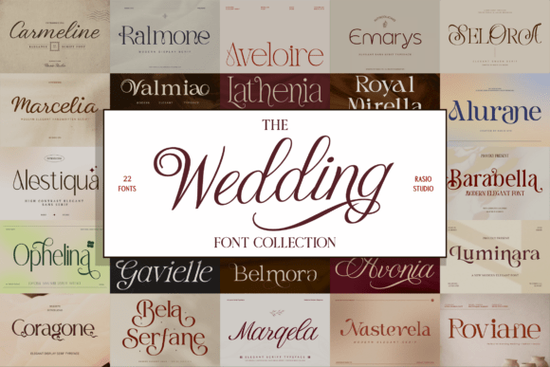
If you're designing wedding invitations, vow books, signage, or even boutique packaging for a small business, the Wedding Collection Font is a thoughtful, ready-to-use set of 22 fonts that works well without needing deep typography knowledge. It’s not about flashy trends it’s about typefaces that feel intentional, legible at print size, and quietly elegant on both screen and paper. Many designers spend hours searching for fonts that balance romance and readability; this bundle simplifies that step.
What’s actually in the Wedding Collection Font?
The collection includes a mix of serif fonts, delicate scripts, and clean modern styles all designed with real-world use in mind. You’ll find fonts suited for headings, body text, monograms, and decorative accents. Each one was created to complement the others, so pairing them feels intuitive not forced. For example, a refined serif like Geista Mond Font works beautifully as a main title next to a softer script for names or dates.
Which fonts stand out for specific uses?
Not every font in the bundle serves the same purpose and that’s by design. Here’s how some of them fit into common projects:
- Serif fonts like Elora Maison Font offer quiet authority and warmth ideal for ceremony programs or fine-print details like RSVP instructions.
- Script fonts such as Solguse Font add movement and personality without sacrificing clarity great for couple names or “Mr. & Mrs.” lines.
- Modern decorative options, including those found in the decorative modern font category, bridge classic and current tastes think subtle flourishes paired with open spacing for breathability.
You’ll also notice many fonts include alternate characters (like swashes or ligatures), which help avoid repetition when hand-lettering isn’t an option. These extras are built-in not hidden behind complex OpenType panels so they’re accessible even if you’re using basic design tools like Cricut Design Space or Silhouette Studio.
How does it compare to mixing random free fonts?
Free fonts often lack consistent weight families, proper kerning, or extended character sets (like accented letters for bilingual weddings). The Wedding Collection Font includes full Latin character support, punctuation variants, and stylistic alternates meaning fewer surprises during final prep. And because all 22 fonts share a cohesive visual language, your invitation suite won’t look like it was assembled from five different sources.
For print-on-demand sellers, consistency matters across product types. A font that reads clearly on a 5×7 postcard should also hold up on a large canvas banner or embroidered napkin. Several fonts in the bundle were tested at multiple sizes and weights specifically for this reason not just for screen previews.
Where do designers actually use these fonts?
Beyond traditional wedding stationery, users report success with:
- Small-batch greeting card lines (especially feminine or luxury-themed collections)
- Local bakery branding think chalkboard menus or custom cake toppers
- Instagram story templates for wedding planners or photographers
- DIY bridal shower decor kits sold on Etsy
- Branded thank-you notes for boutique hotels or B&Bs
One designer shared that switching from mismatched Google Fonts to this bundle cut her client revision rounds in half because couples responded more confidently to cohesive typography than to “pretty but unrelated” fonts.
Start with three fonts: one serif for structure, one script for emphasis, and one clean sans or modern serif for captions or secondary text. Try them together in a simple layout no need for fancy mockups. If the hierarchy feels natural and the mood matches your brand or client’s vision, you’re on solid ground. You can always explore more later.
Also worth noting: the Geista Mond Font and Elora Maison Font are frequently used as anchor fonts in multi-font projects, thanks to their balanced x-height and generous spacing. They pair well with both vintage-inspired and minimalist layouts.